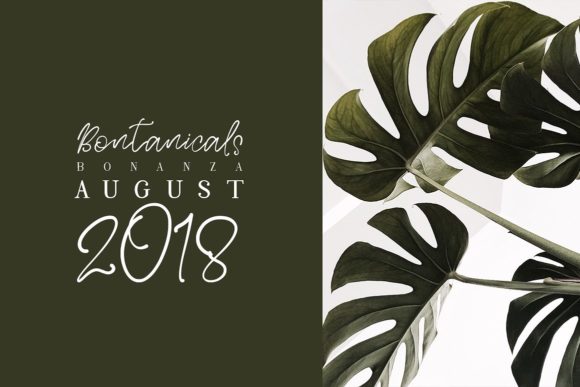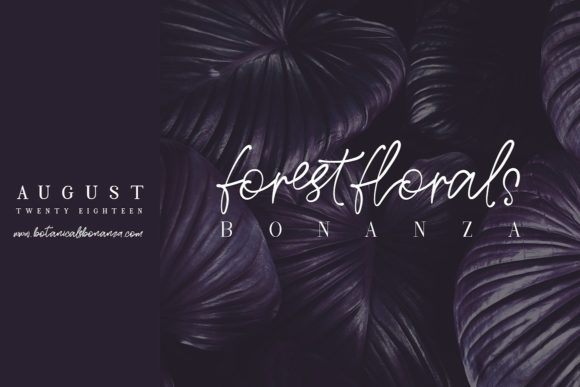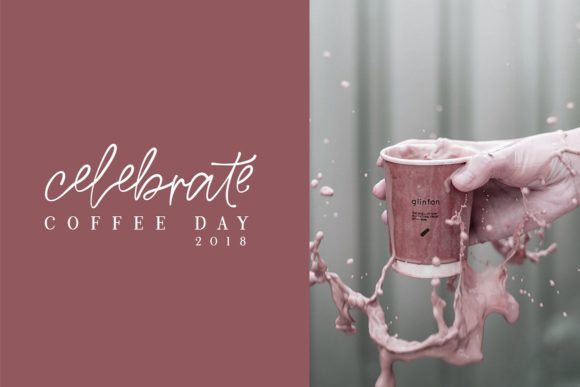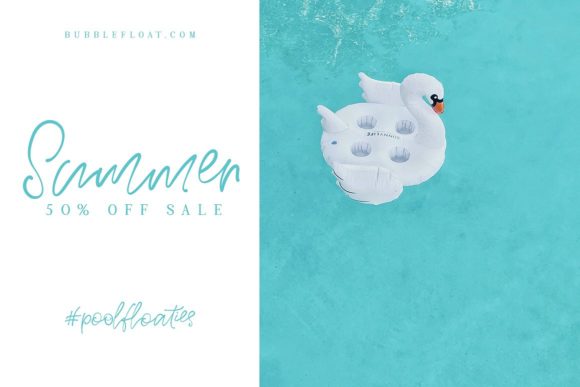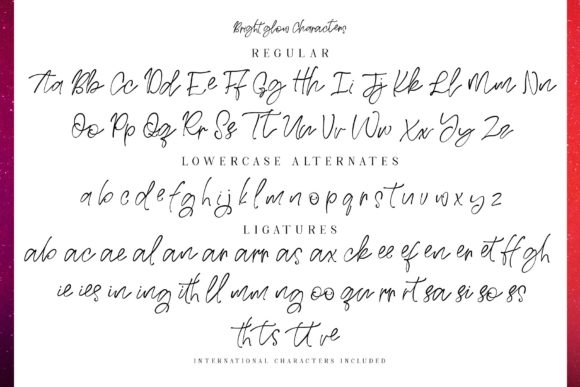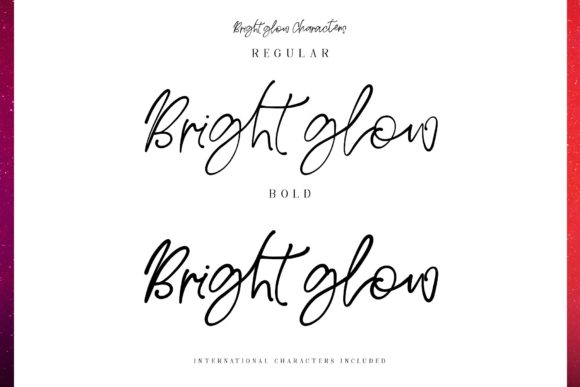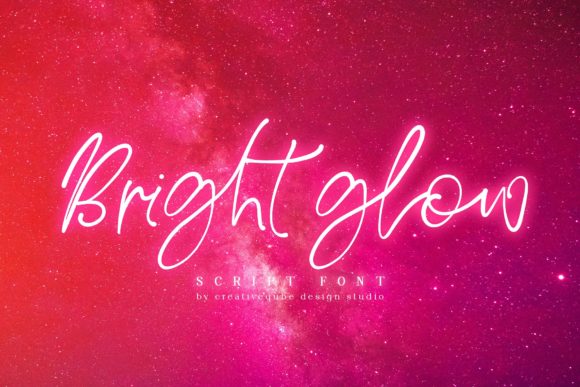
Introducing Bright Glow Font: The Perfect Addition to Your Design Arsenal
Are you tired of using the same old fonts in your designs? Look no further! Bright Glow Font is here to add a burst of energy and personality to your projects. This amazing script font is designed to bring a smile to your face with its cute, happy, and friendly vibe. In this article, we’ll dive into the features and benefits of Bright Glow Font, and explore how it can elevate your designs to the next level.
The Characteristics of Bright Glow Font
So, what makes Bright Glow Font so special? For starters, it’s a script font that’s bright, bouncy, and full of life. The letters are carefully crafted to have a friendly touch, making it perfect for designs that require a personal and approachable feel. But don’t let its playful nature fool you – Bright Glow Font is also incredibly versatile and can be used for a wide range of projects, from crafting and scrapbooking to branding and advertising.
A Full Set of Features
One of the standout features of Bright Glow Font is its comprehensive set of characters. Not only does it include a full set of uppercase and lowercase letters, but it also comes with a set of lowercase alternates. This means you can mix and match letters to create a truly unique and authentic handwritten look. But that’s not all – Bright Glow Font also includes extra ligatures to help you achieve that perfect, flowing script.
Bright Glow Font is a dream come true for designers and crafters alike. Whether you’re creating digital products or handmade crafts, this font is sure to add a touch of personality and whimsy to your work. Imagine using Bright Glow Font to create custom party invitations, social media graphics, or even handmade cards and gift tags. The possibilities are endless, and the results are sure to be adorable.
Tips for Using Bright Glow Font
So, how can you get the most out of Bright Glow Font? Here are a few tips to get you started:
• Experiment with different colors and textures to add depth and interest to your designs.
• Mix and match letters to create a unique and authentic handwritten look.
• Use Bright Glow Font to add a personal touch to your digital products, such as printables and planners.
• Don’t be afraid to get creative and try out new and unexpected uses for the font – after all, that’s what makes design so much fun!
Why Choose Bright Glow Font?
With so many fonts on the market, it can be hard to know which one to choose. So, why should you choose Bright Glow Font? Here are just a few reasons:
• It’s incredibly versatile and can be used for a wide range of projects.
• It’s easy to read and understand, making it perfect for designs that require a clear message.
• It’s fun and playful, adding a touch of personality to your designs.
In conclusion, Bright Glow Font is an amazing script font that’s sure to bring a burst of energy and personality to your designs. With its comprehensive set of characters, friendly vibe, and versatility, it’s the perfect addition to any design arsenal. Whether you’re a designer, crafter, or simply someone who loves to create, Bright Glow Font is sure to delight. So why wait? Download Bright Glow Font today and start adding a touch of brightness and glow to your designs!
• Script font with a friendly and playful vibe
• Full set of uppercase and lowercase letters
• Lowercase alternates for a unique and authentic look
• Extra ligatures for a flowing script
• Perfect for designers, crafters, and anyone who loves to create